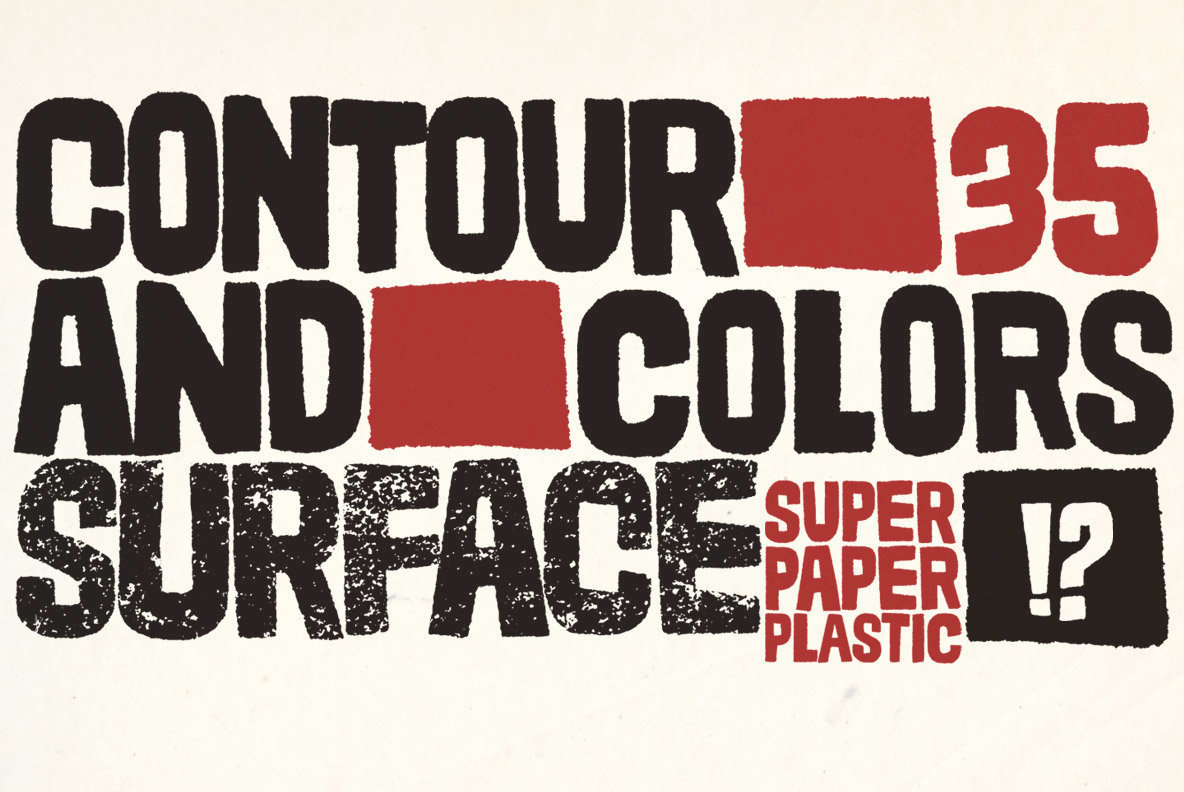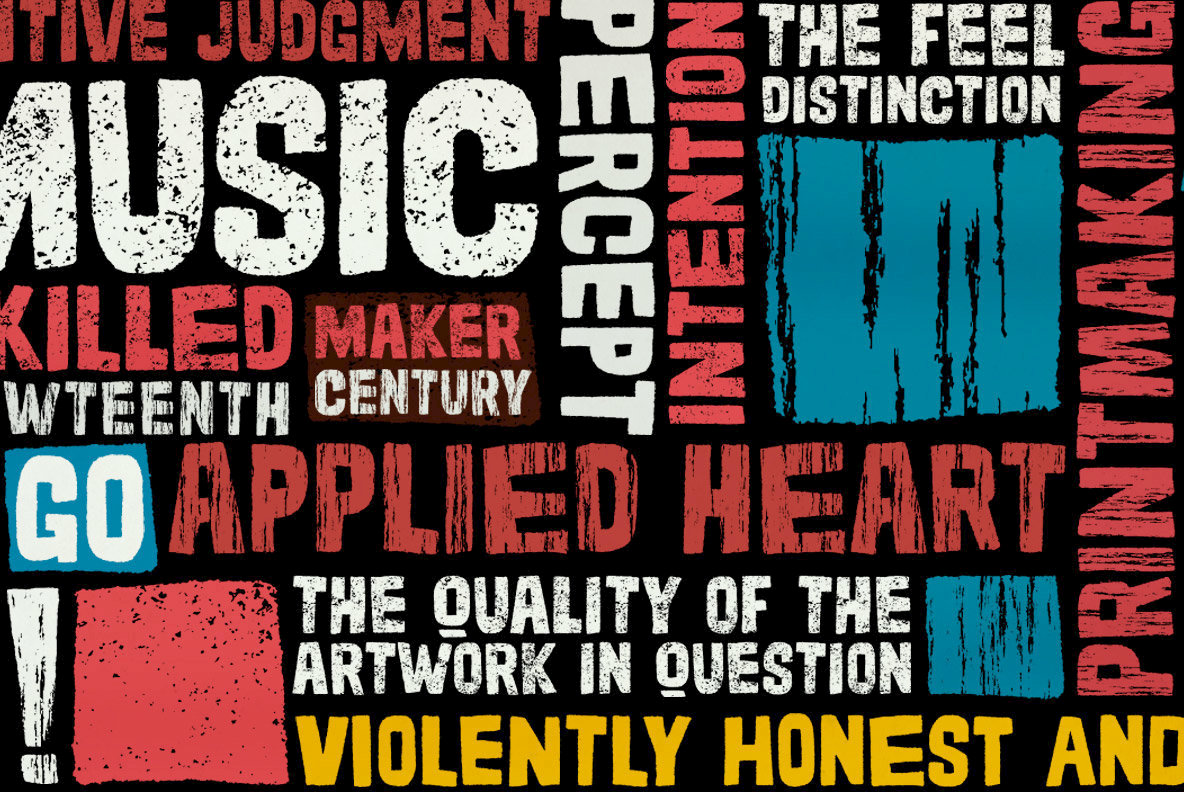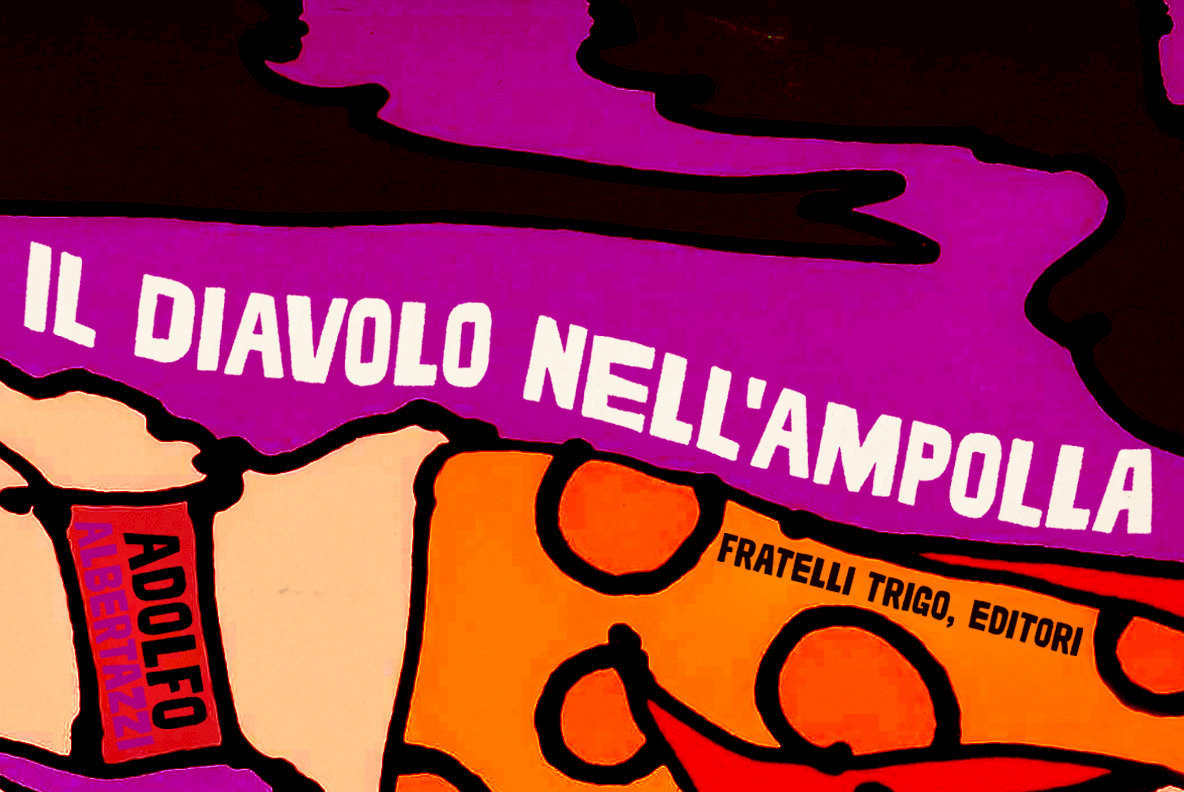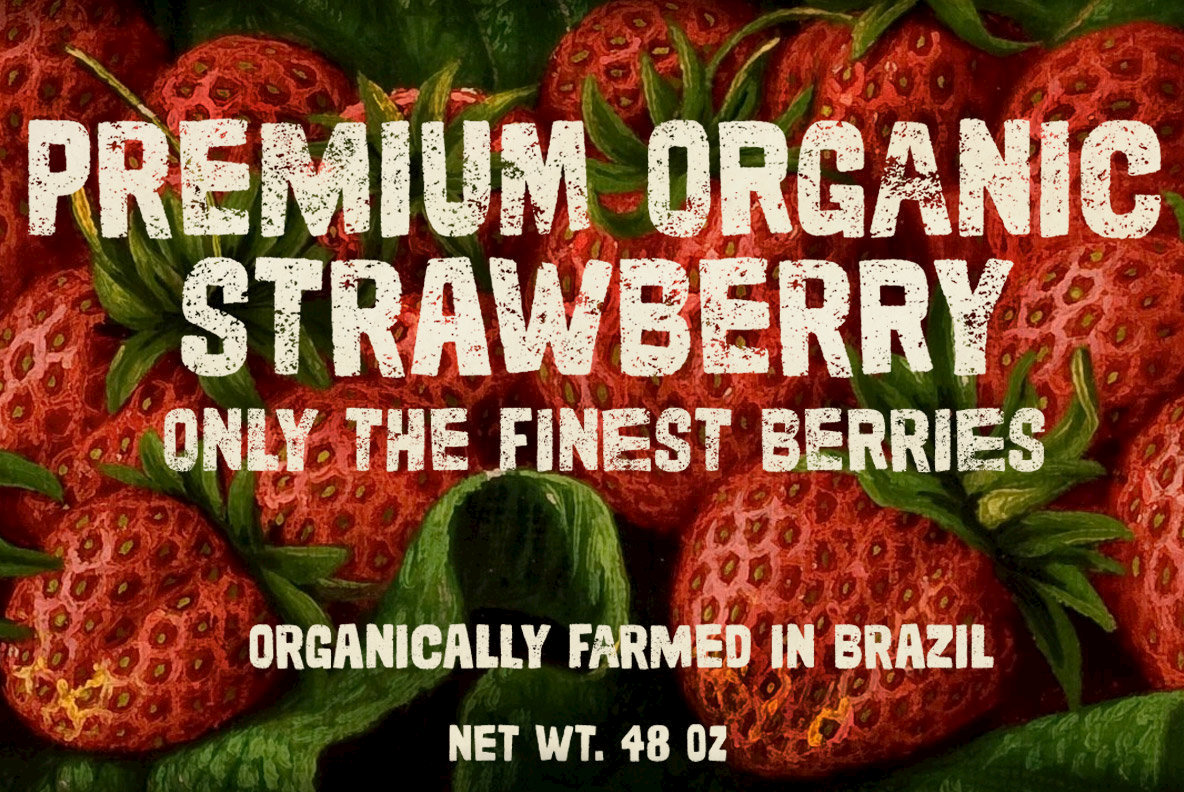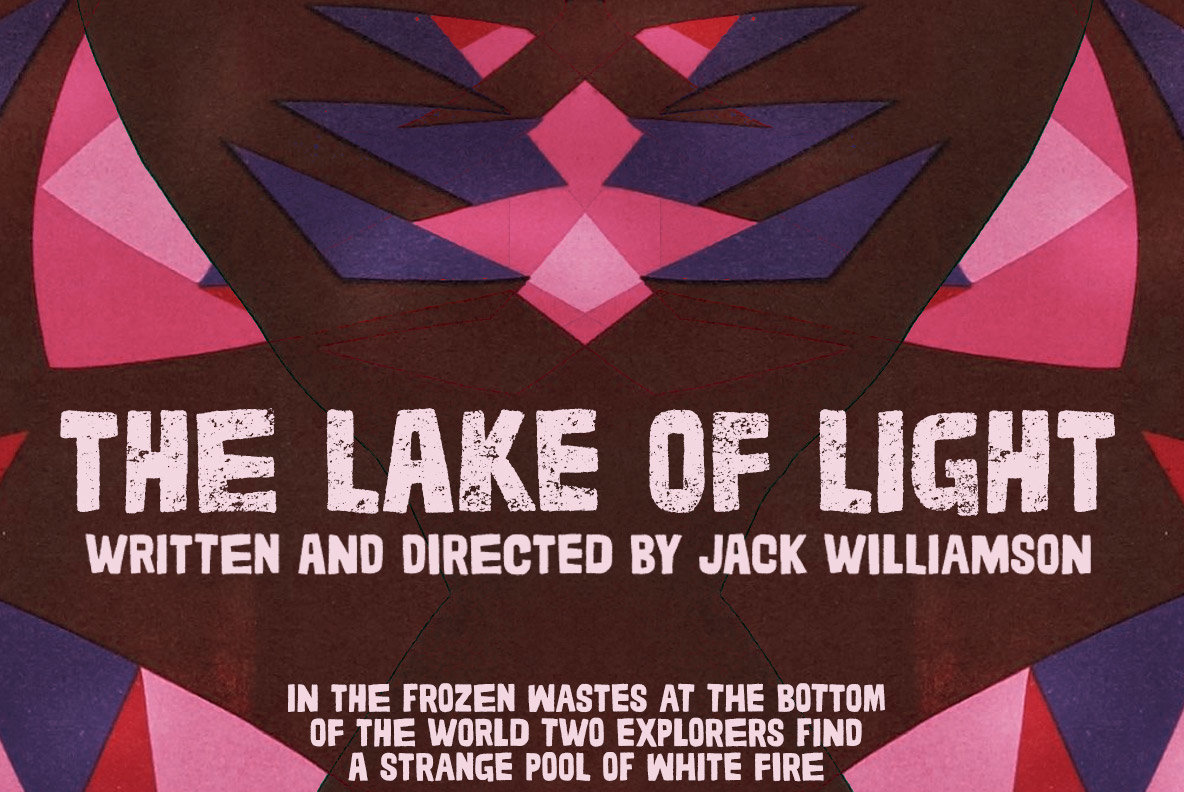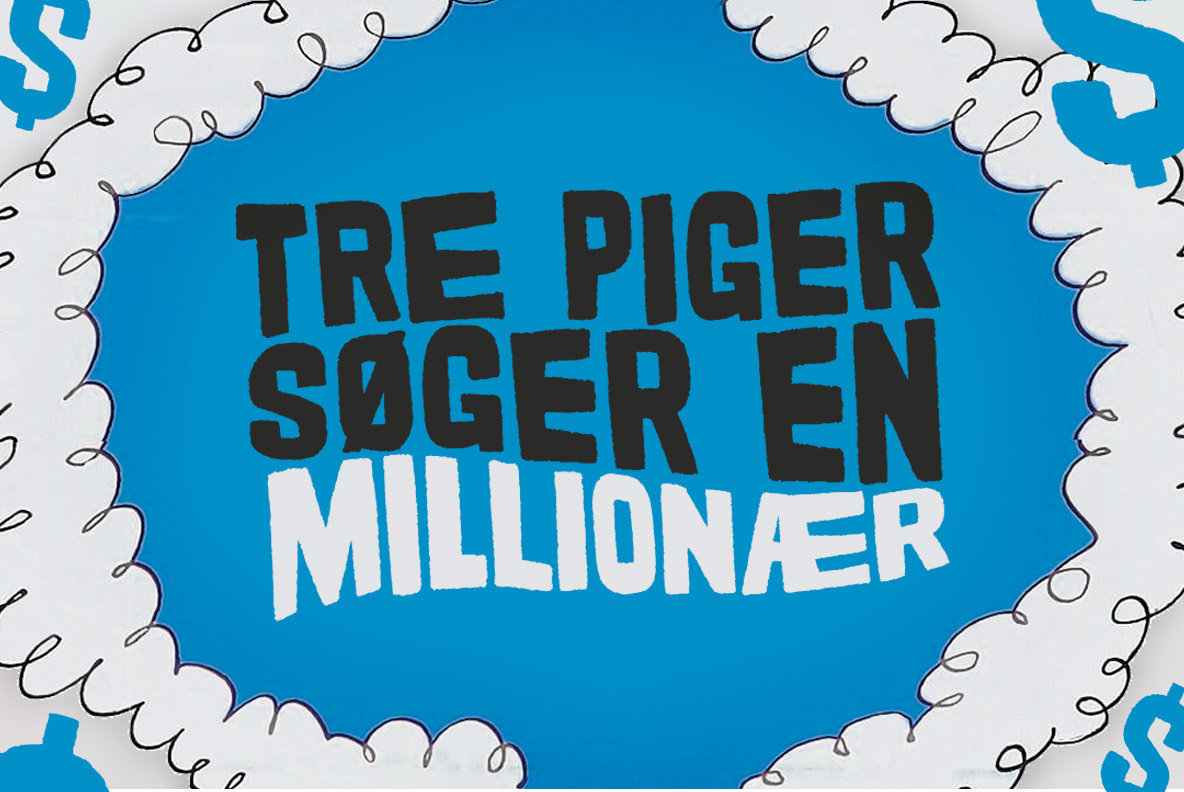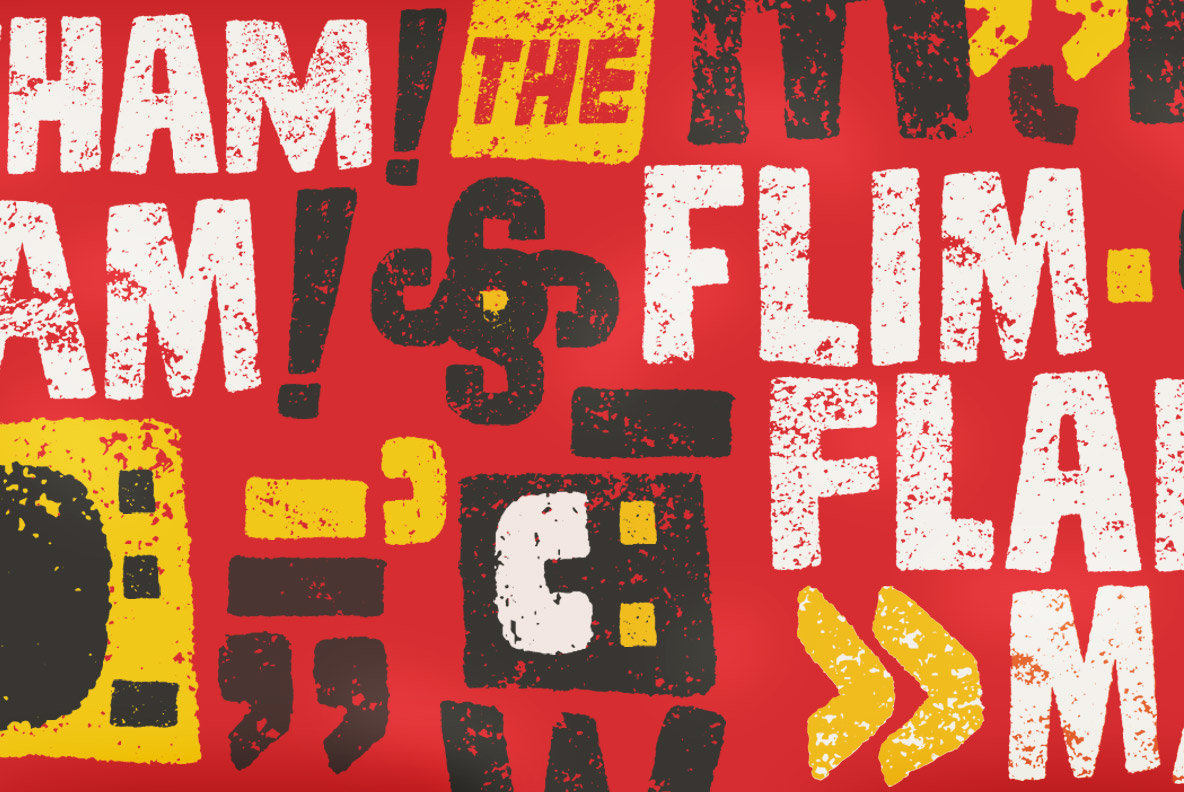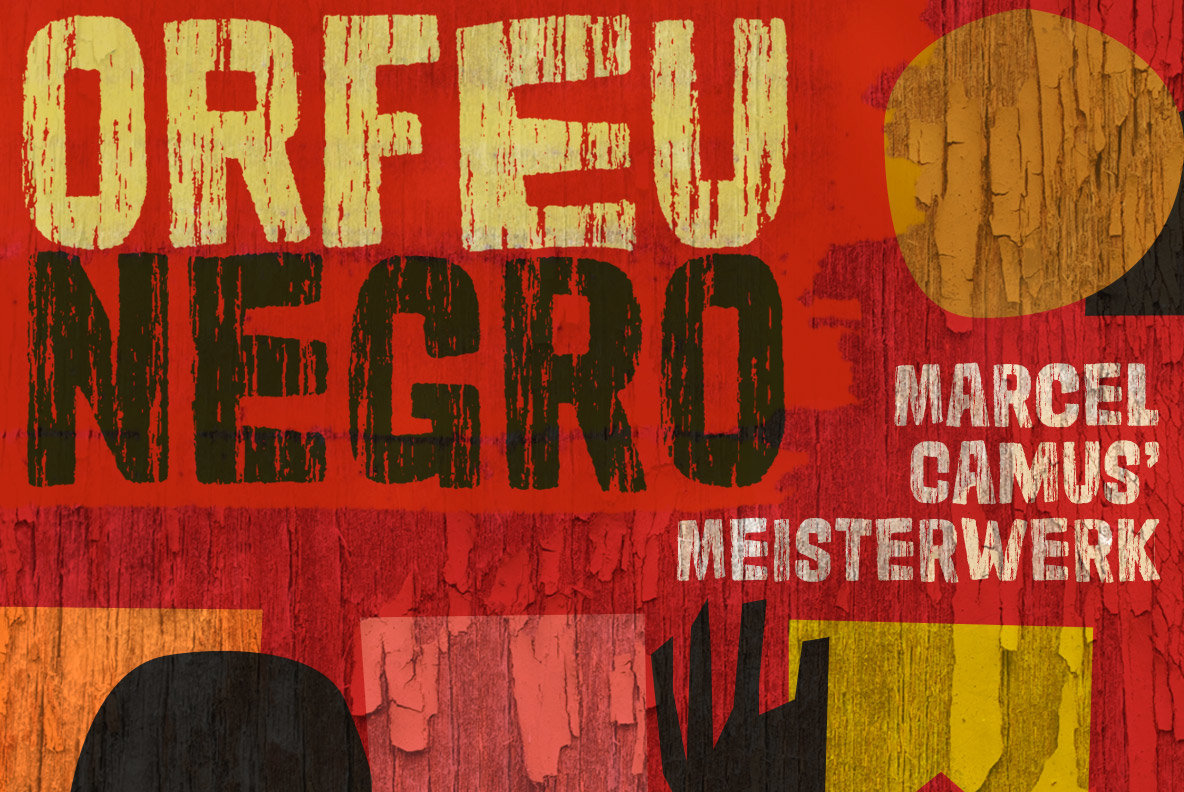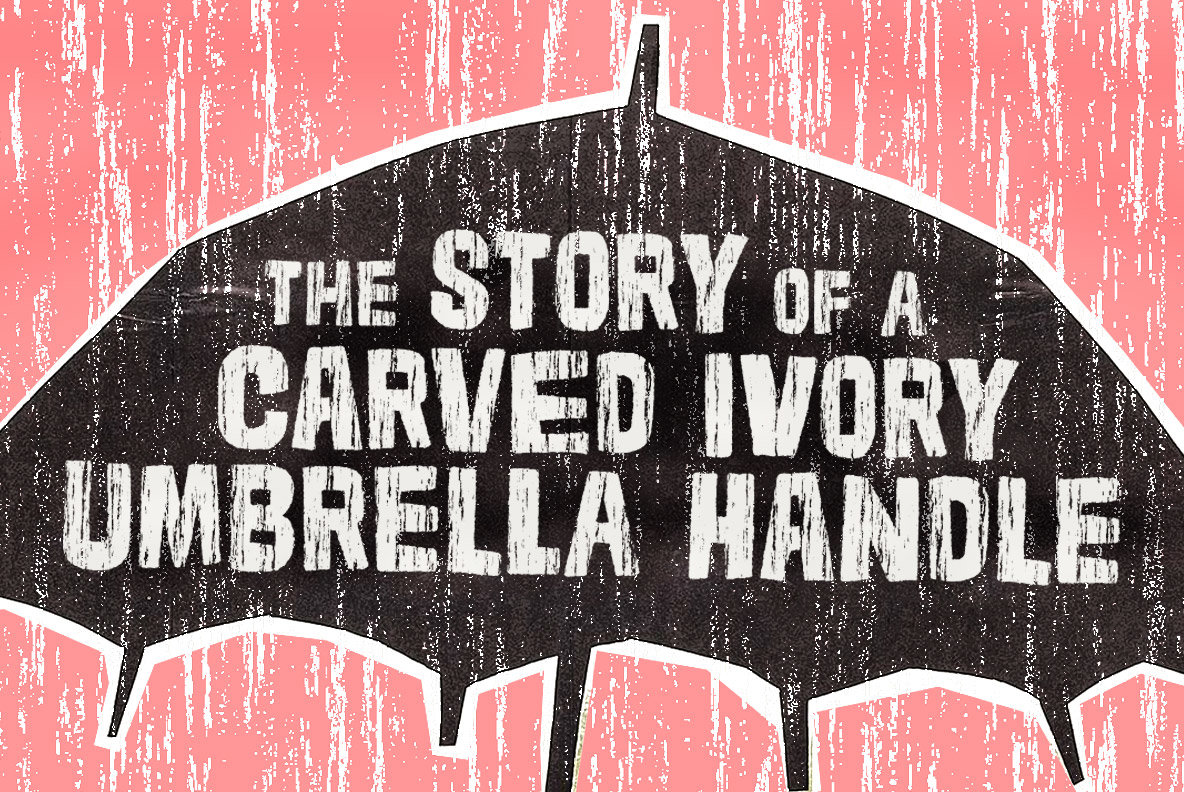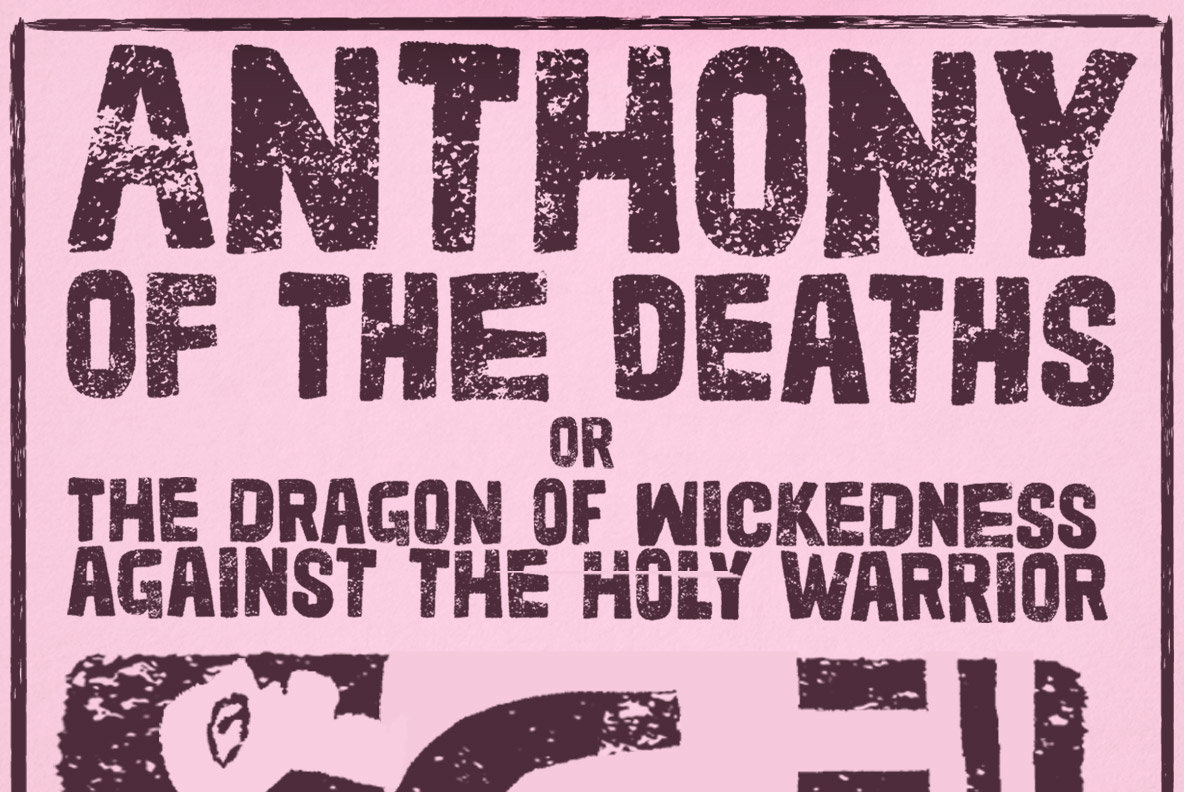
Cordelia Font
Cordelia
Cordelia Stone
Cordelia Wood
Impacting and vibrant, Cordelia family draws inspiration from covers of 'cordel literature’, small booklets of popular story-poems that played an essential role on the folk-popular cultural life of Brazil.
Printed in coarse paper, usually with an woodcut illustration and lettering in the front, these booklets were sold on the streets, in marketplaces and town squares, hung in a cord - therefore the name ‘cordel’.
The work of these humble printers and poet-singers of northeastern Brazil strongly served as source for acclaimed romances and movies and still inspires writers of all genres, movie makers, painters, musicians. And type designers too :)